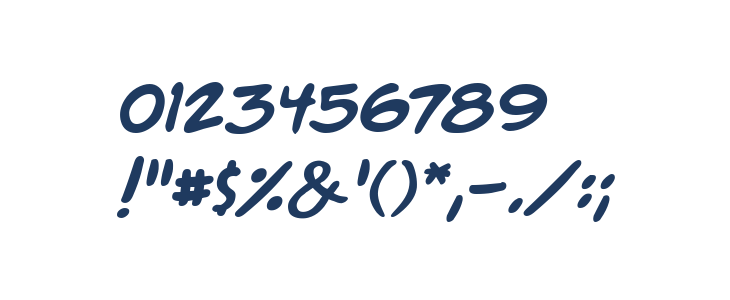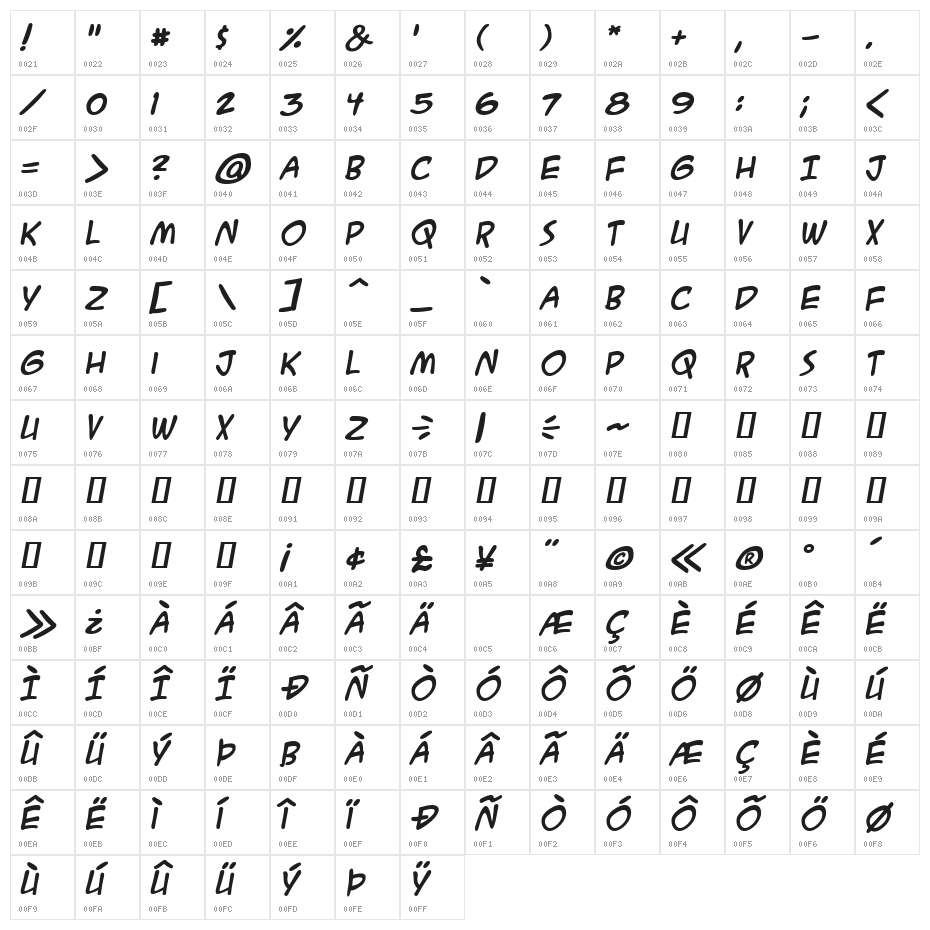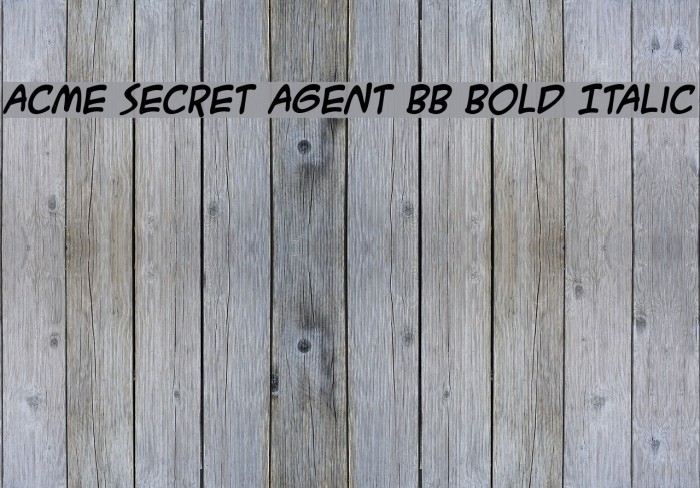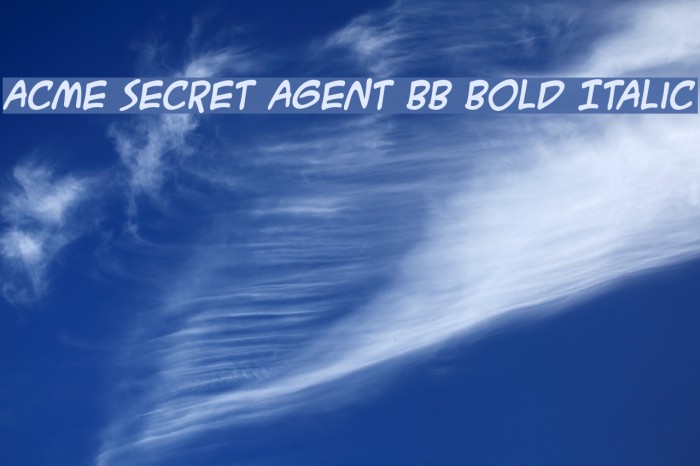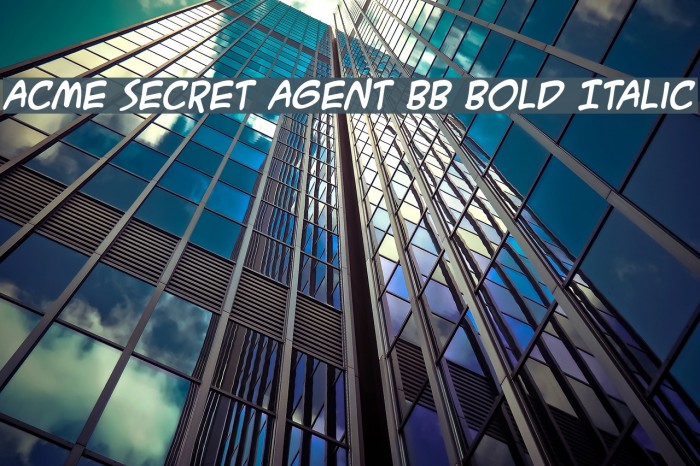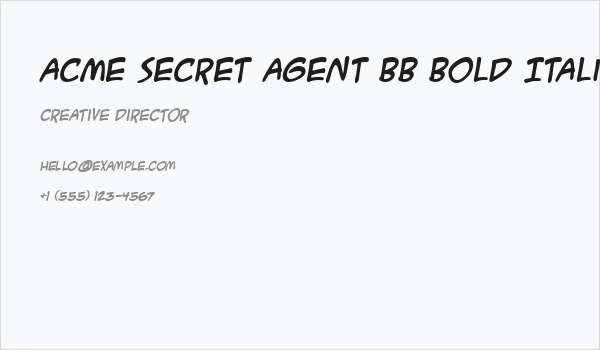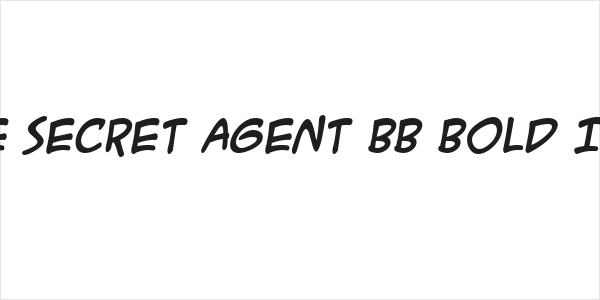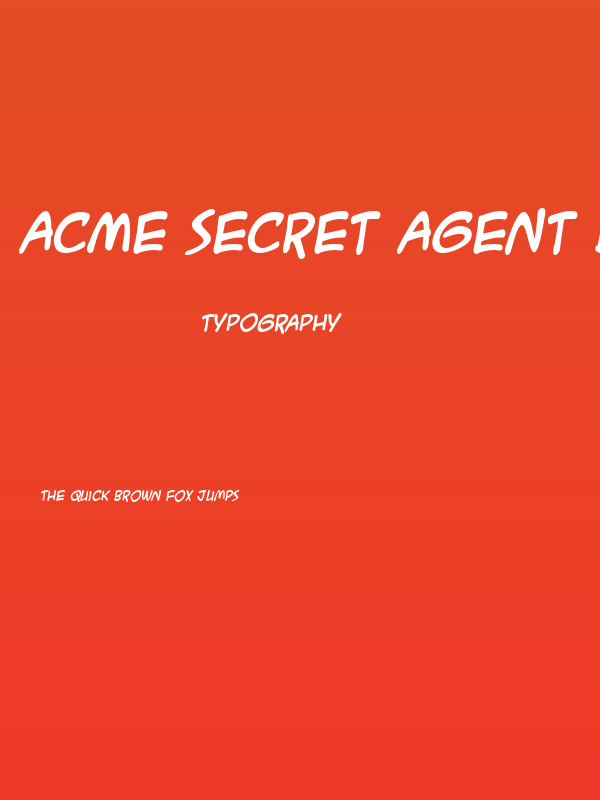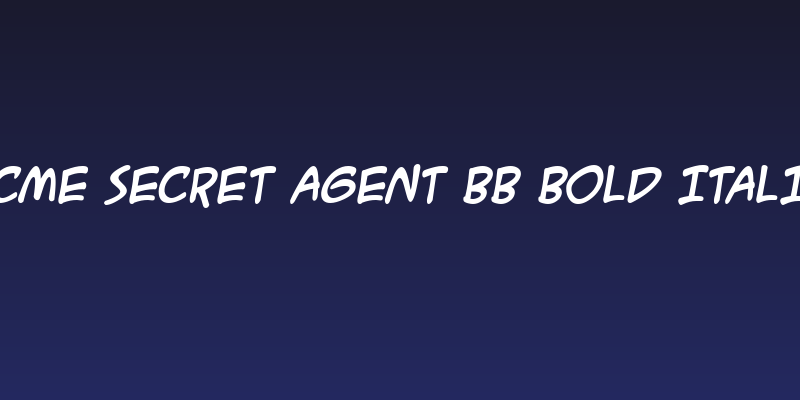
ACME Secret Agent BB Bold Italic Font
ACME Secret Agent BB Bold Italic Description
This font features a bold and italicized style with a playful and dynamic appearance. The characters are slightly slanted, giving a sense of movement and energy. The strokes are thick and rounded, contributing to a friendly and approachable look. The uppercase and lowercase letters maintain a consistent style, with smooth curves and a uniform weight. The numerals and special characters are designed to match the overall aesthetic, ensuring a cohesive appearance across all elements. This font is ideal for projects that require a bold statement with a touch of personality.
| Proposed Projects | Ideal for comic books, children's books, playful branding, and eye-catching headlines. |